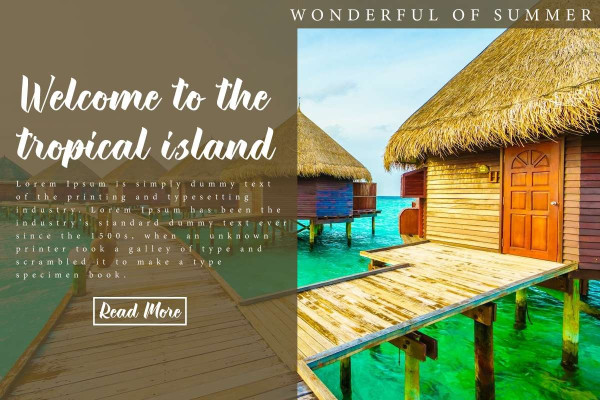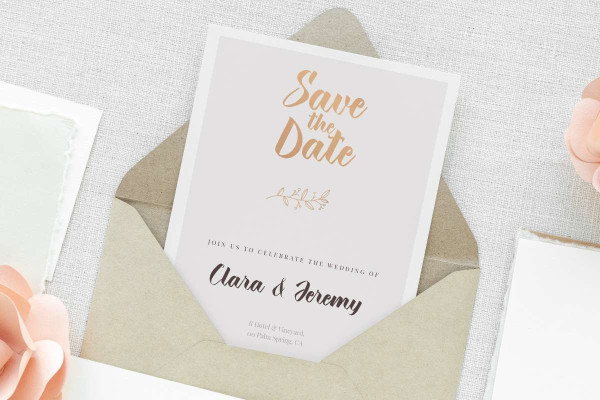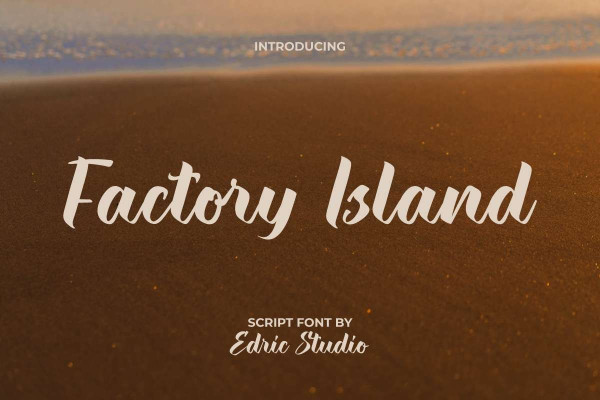
Factory Island Font
Factory Island Font is a thick script display font with a modern look, designed by EdricStudio. This typography has a casual look and dense filled dominant brush shape that is timeless and will suit any industry, such as artist, fashion, furniture, restaurant, handicraft, printing, publishing, real estate, skincare, travel agency, wedding, writer, and many more.
Factory Island Font comes with a full set of Uppercase and Lowercase Basic Characters, Number, a large range of Punctuation and Symbol. It has a stunning characters set, perfectly managed with well spaced and kerning. Factory Island Font also comes with additional ligature characters that make it a perfect bond, will be able to complement for any project (with extended license) including: billboard, brand logo, brochure, calendar, header, invitation, product packaging, quote, screen print, sticker, website, etc.